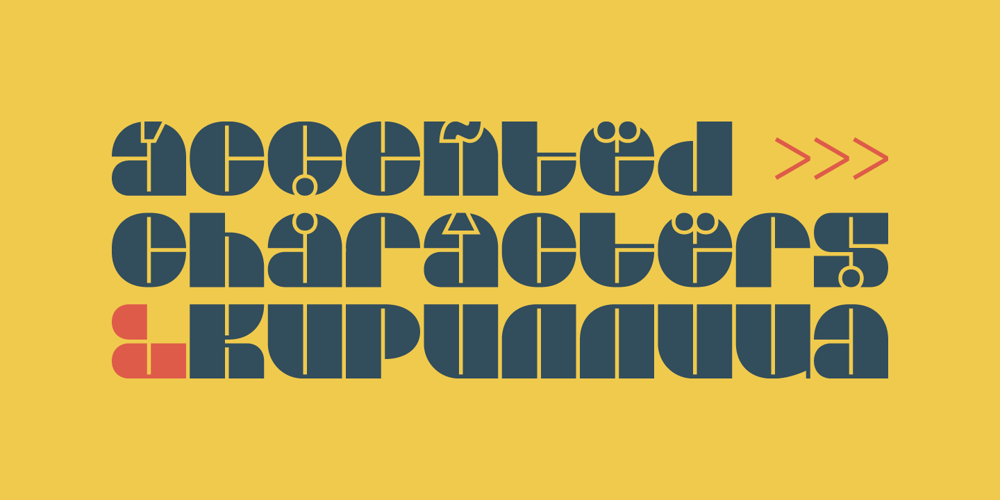
KD Bombarda Font Family was designed by Zhalgas Kassymkulov and published by Kassymkulov Design. KD Bombarda contains 1 styles and family package options. KD Bombarda is a piano-key, stencil and display face that will make your projects stand out from the crowd by introducing some interesting letter shapes. Originally designed in 2013, it’s now been edited to provide smoother curves with broader character and feature support including Cyrillic.